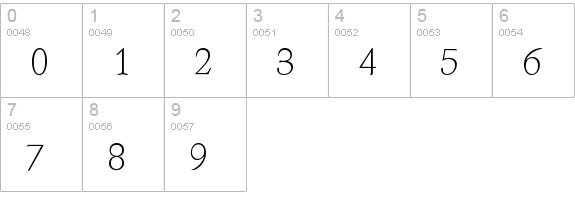
SchneidlerEF-Light is a refined, elegant variant in the SchneidlerEF typeface family \xE2\x80\x94 well suited to elegant body text, refined sub-headings, and luxury branding.
SchneidlerEF-Light is an exquisite font that combines traditional elegance with a contemporary edge. With its delicate strokes and graceful curves, this font exudes sophistication and refinement. Designed with precision and attention to detail, SchneidlerEF-Light is perfect for projects that require a touch of class. What sets this font apart is its versatility. Whether you're designing a logo, creating a magazine layout, or crafting a wedding invitation, SchneidlerEF-Light can effortlessly adapt to any context. Its clean lines and balanced proportions make it highly readable, ensuring that your message is conveyed with clarity and style. One of the most remarkable aspects of SchneidlerEF-Light is that it is freely available to download at FontsMarket.com. This means that you can access this stunning font without any cost. It's a rare opportunity to enhance your design projects with a high-quality font that doesn't come with a hefty price tag. Furthermore, SchneidlerEF-Light is designed to be compatible with various design software and platforms, making it incredibly easy to integrate into your workflow. Whether you're a professional designer or a hobbyist, this font is accessible to all, allowing you to elevate your creations with its timeless charm. In conclusion, SchneidlerEF-Light is a font that embodies elegance, versatility, and accessibility. Its free availability at FontsMarket.com makes it an invaluable resource for designers and enthusiasts alike. So why wait? Download SchneidlerEF-Light today and let its timeless beauty enhance your next design project.